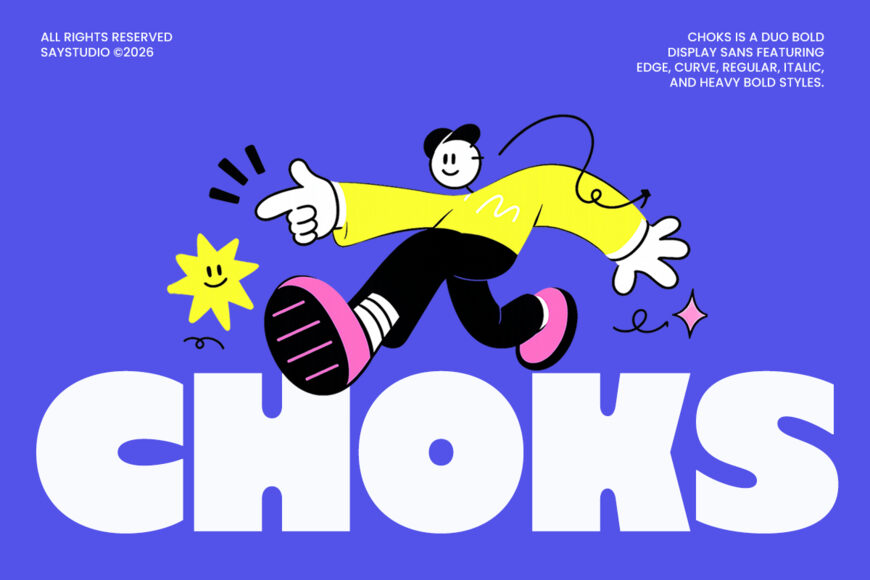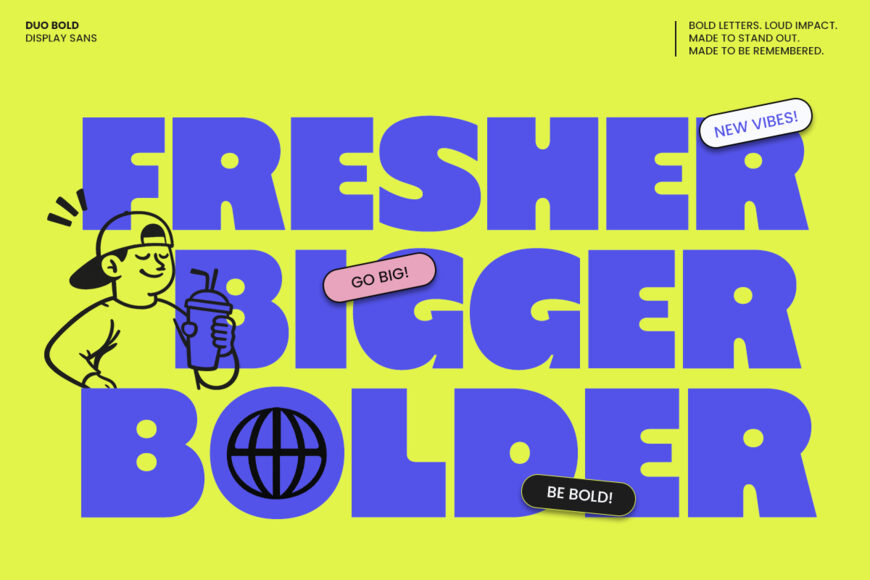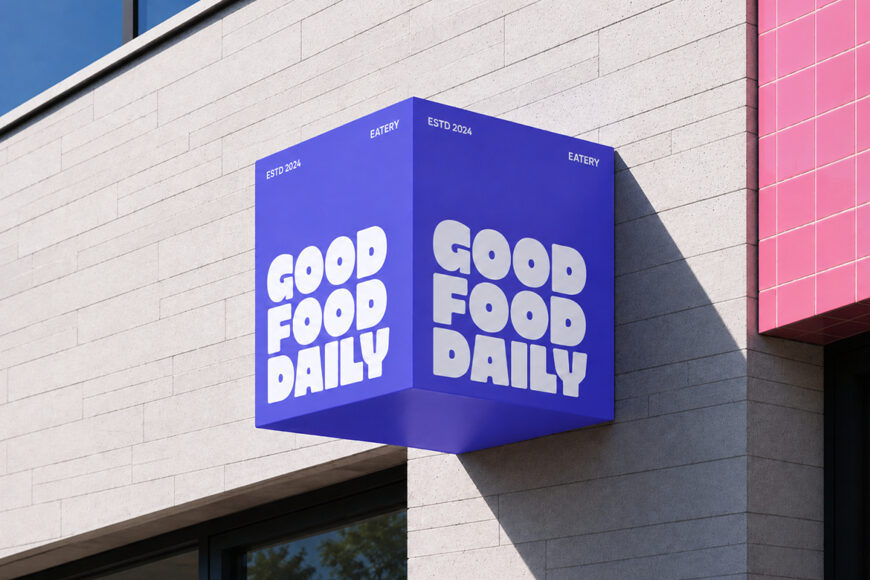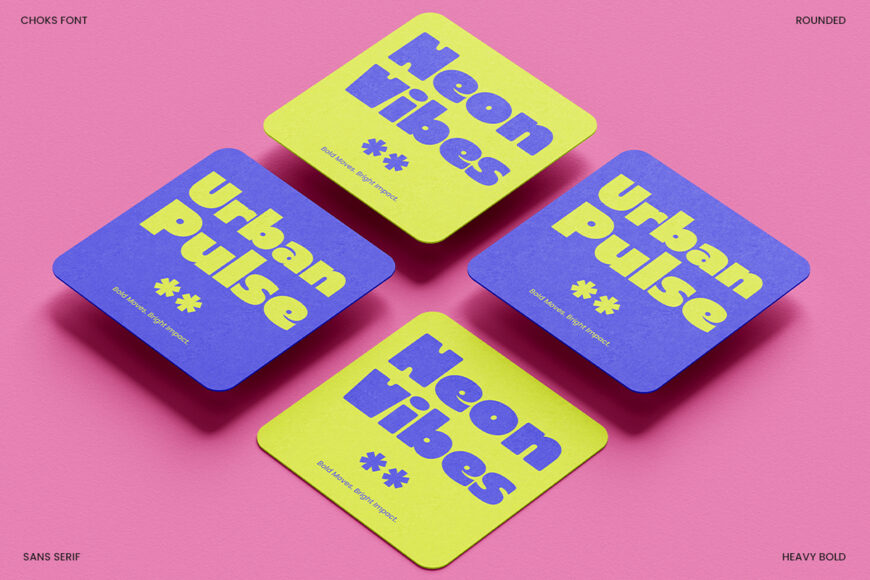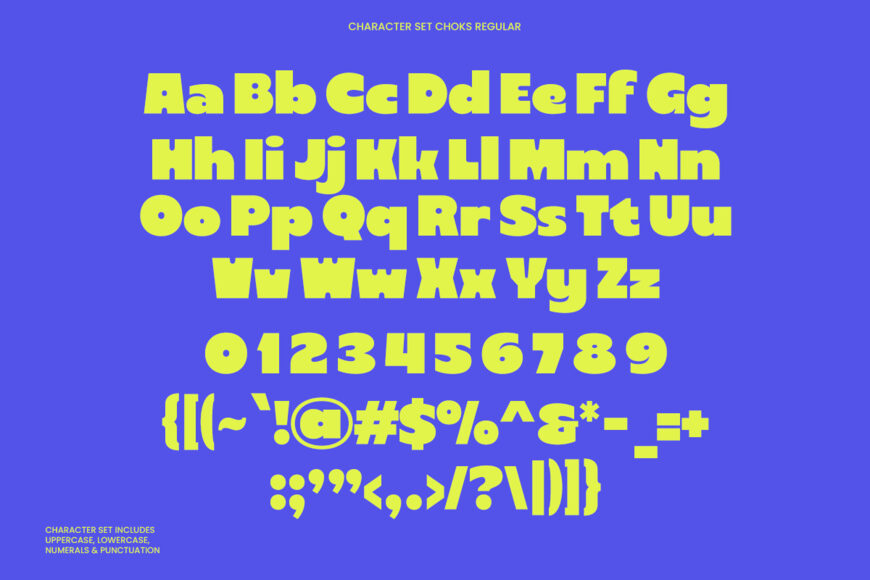
Choks Font
Choks is a bold and playful display sans serif font designed to make every word impossible to ignore. Featuring a unique dual-style system with both Regular (Sharp Edge) and Rounded versions, Choks gives designers the flexibility to create energetic, eye-catching typography while maintaining a consistent visual identity.
Inspired by contemporary branding, street graphics, packaging design, and modern editorial trends, Choks delivers a friendly yet powerful personality. Whether you’re creating bold headlines, vibrant posters, product packaging, social media content, logos, or creative merchandise, this font brings a fresh and expressive look that instantly stands out across digital and print applications.